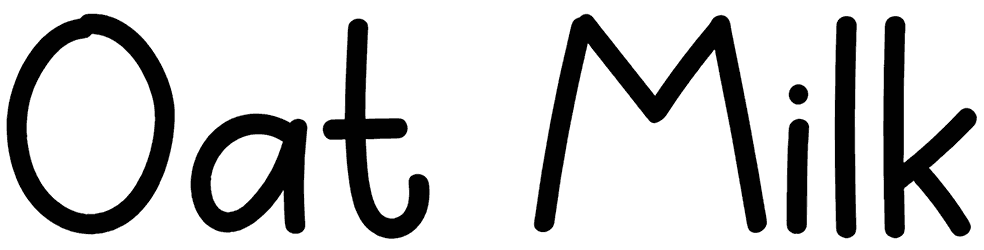
Oat Milk Font
Designed byLuluk Surotul
Undoubtedly, using the appearance of calligraphy can make your project fascinating and dazzling, and herein Oat Milk leads your graphics to exactly this objective.
This calligraphy font, with delicate curves and striking details, will give a vibe of animated, friendly, and playful to your design. As an A-Z doodle font, it’s multipurpose to show off your design,s including sauce branding, snacks, cartoons, stationery designs, and more perfectly.